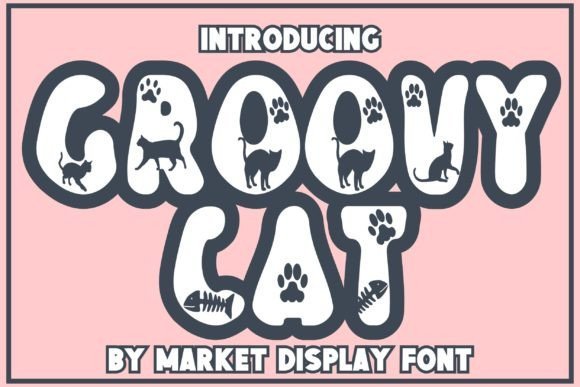
Have you ever sat down with a blank page or screen, staring blankly at the cursor, waiting for inspiration to strike? That’s exactly what happened to me last week, and it wasn’t until I stumbled upon the Groovy Cat Font that my creative juices started flowing again. This cool and friendly decorative font is a game-changer for designers looking to add a touch of whimsy to their work.
The Groovy Cat Font is designed to bring a smile to the faces of your audience, whether you’re creating cartoon-related designs, children’s games, or just any creation that requires a lovely touch. Its unique style and charm make it an invaluable asset for designers looking to stand out from the crowd.
Groovy Cat Font Key Features
- Font Family: Groovy Cat Font is a sans-serif font family designed to evoke a fun and playful vibe.
- Unique Characteristics: Groovy Cat Font features a distinctive, hand-drawn aesthetic with a mix of geometric and organic elements, giving it a truly one-of-a-kind look.
Groovy Cat Font Review
Overall, I’d say the Groovy Cat Font has a certain charm to it ✨. The design is quirky and fun, making it perfect for any project that needs a playful touch. The font’s unique blend of bold lines and whimsical details really stands out. I appreciate how it can add a sense of personality to any text, whether it’s a logo, a headline, or even a body of text.
- Unique design that sets it apart from other fonts
- Perfect for projects that need a playful or whimsical touch
- Works well in a variety of contexts, from logos to body text
However, there are a few limitations that should be noted ⚠️:
- May not be suitable for projects that require a more formal or professional tone
- Some letters may be difficult to read at smaller font sizes
- May not be compatible with all operating systems or devices
Overall, I think the Groovy Cat Font is a great addition to any designer’s toolkit. While it may not be perfect for every project, it’s definitely worth considering for anything that needs a playful or whimsical touch.
The Groovy Cat Font is perfect for adding a fun and playful touch to your designs. Use it for:
- Children’s birthday invitations and party decorations.
- Food and beverage branding (e.g., cat cafes, pet treats, etc.).
- Quirky and humorous social media graphics.